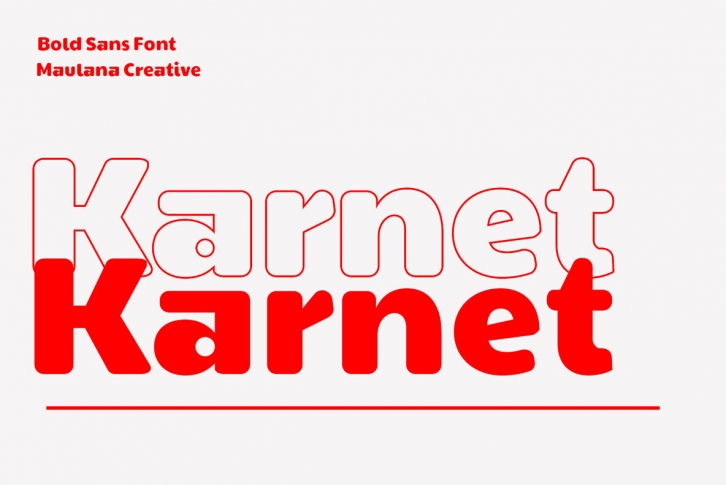
Introducing Karnet, a one-of-a-kind sans serif font that combines bold strokes and fun characters to inject extra creativity into your designs. With a touch of ligatures and alternates, Karnet offers endless possibilities to make your work stand out and shine.
Supporting more than 100+ languages, Karnet is a versatile font that caters to a wide range of audiences. It's perfect for various applications such as logo design, social media, movie titles, book titles, short texts, and even lengthy text letters. Plus, Karnet pairs beautifully with script or serif fonts as a secondary text font, adding flair and personality to your creations.